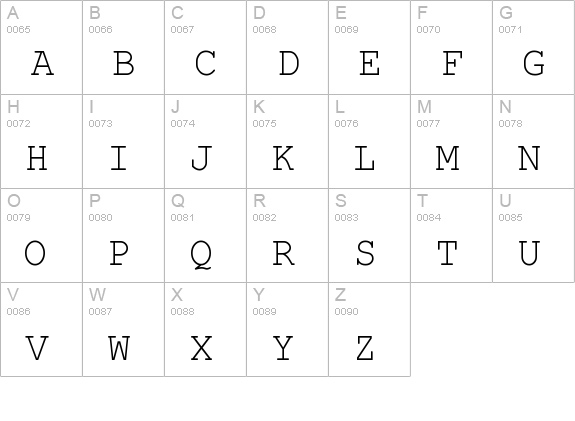
Introducing Web Hebrew Monospace, a unique and versatile font that combines the beauty of Hebrew script with the functionality of a monospace typeface. This font is perfect for any web design project that requires a clean and modern look while maintaining the integrity of the Hebrew language. Web Hebrew Monospace is meticulously crafted to ensure legibility and readability, making it an ideal choice for websites, blogs, and digital publications. Its monospace design allows for easy alignment and enables precise formatting, making it particularly useful for coding and programming projects. What sets Web Hebrew Monospace apart is that it is not only visually stunning, but it is also free! Yes, you read that right. This exceptional font is freely available to download at FontsMarket.com, a trusted source for high-quality fonts. Now you can enhance your web designs or add a touch of elegance to your Hebrew content without breaking the bank. Whether you are a professional web designer, a hobbyist, or simply someone who appreciates the beauty of the Hebrew language, Web Hebrew Monospace is a must-have addition to your font collection. Its versatility, readability, and cost-free availability make it a font that is hard to resist. Download Web Hebrew Monospace today and experience the seamless blend of aesthetics and functionality that this font offers. With its clean lines, timeless design, and the added bonus of being available for free, Web Hebrew Monospace is the perfect choice for any project that requires a touch of Hebrew elegance.